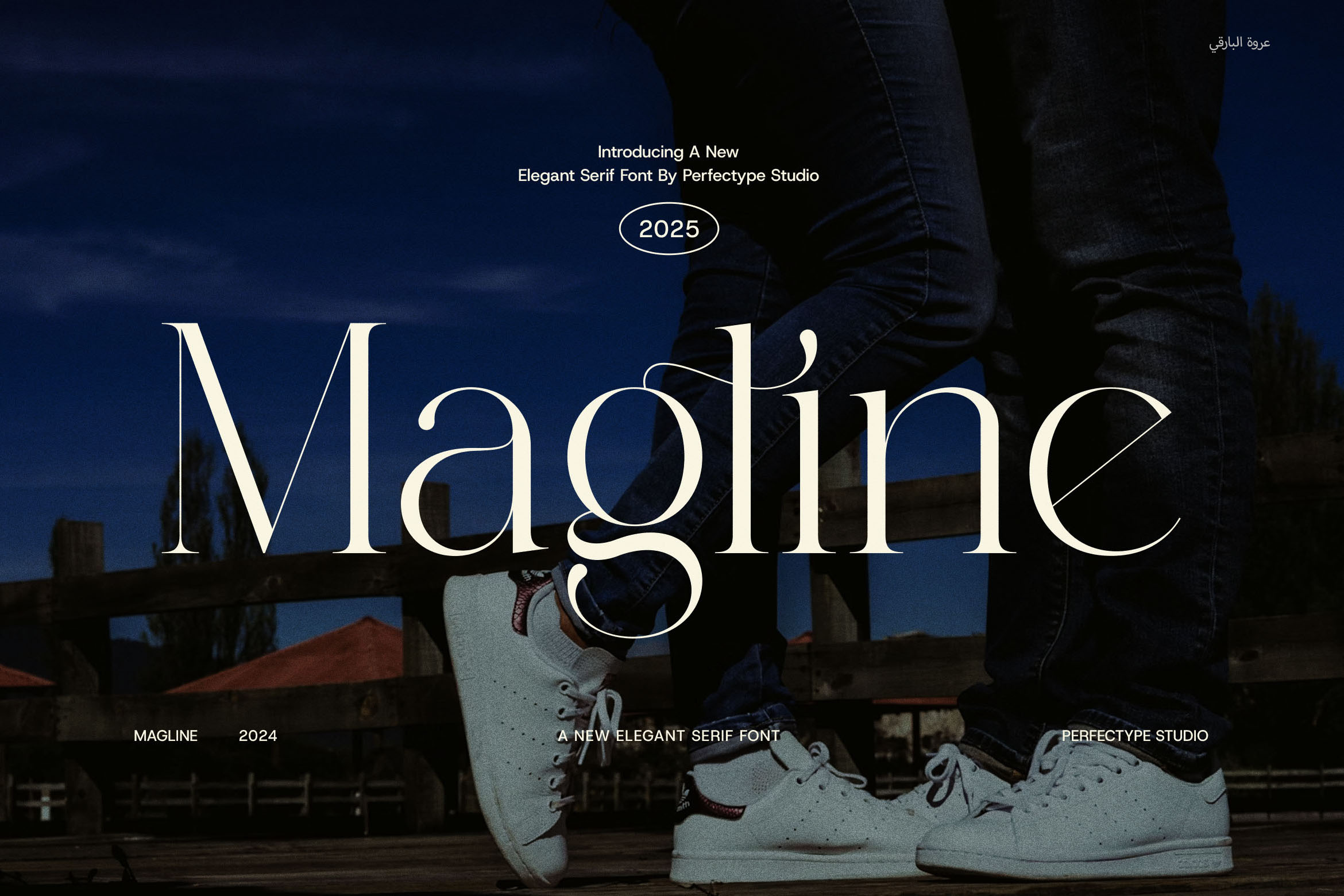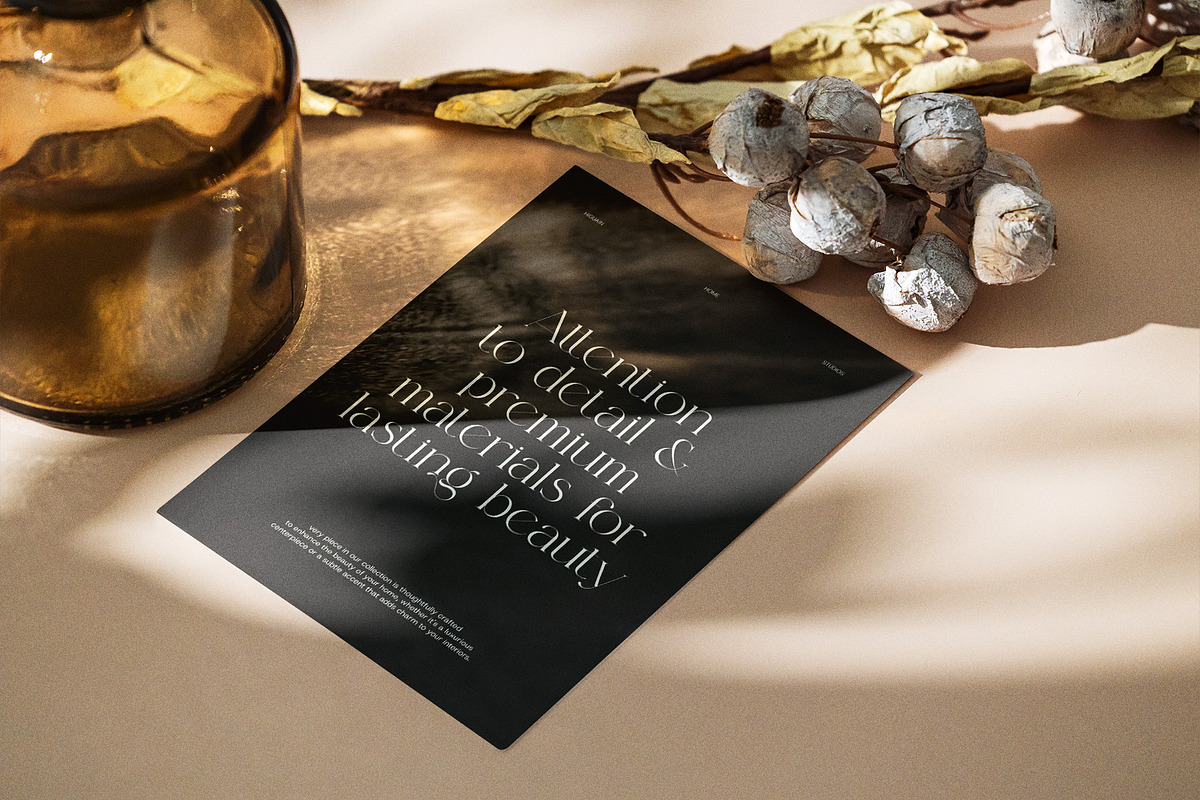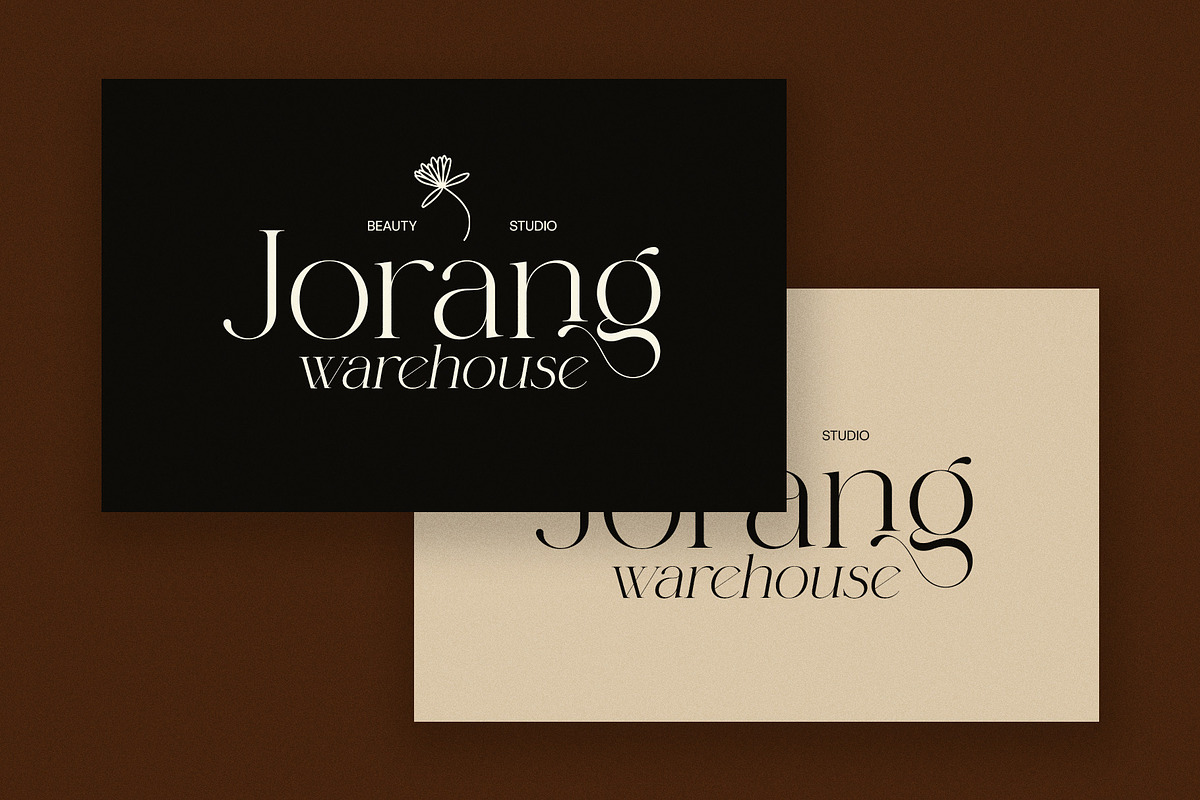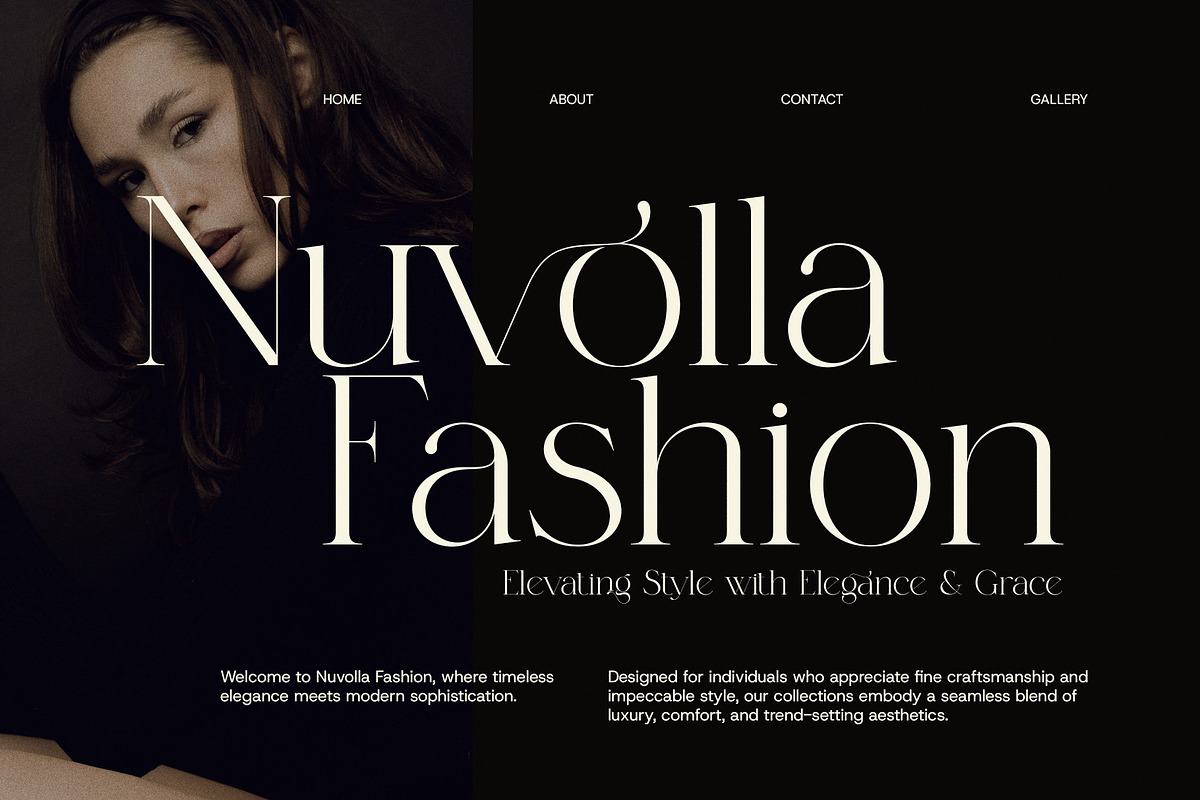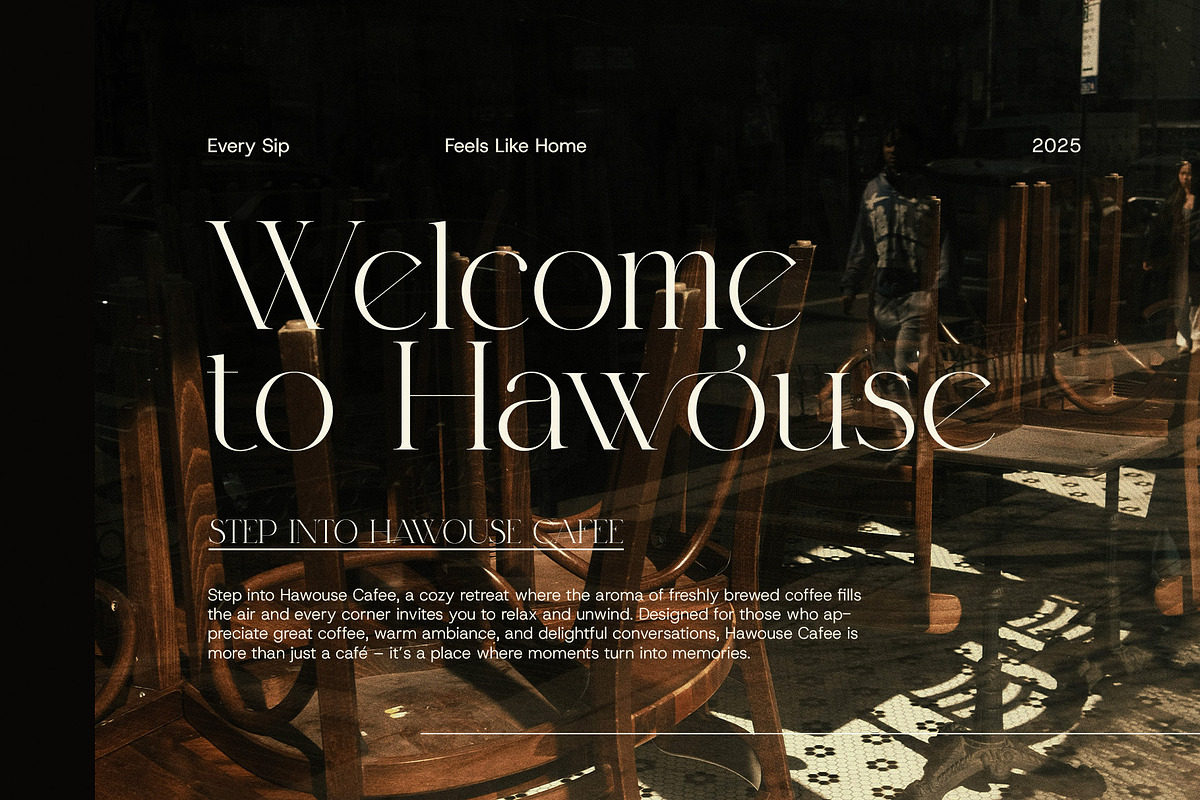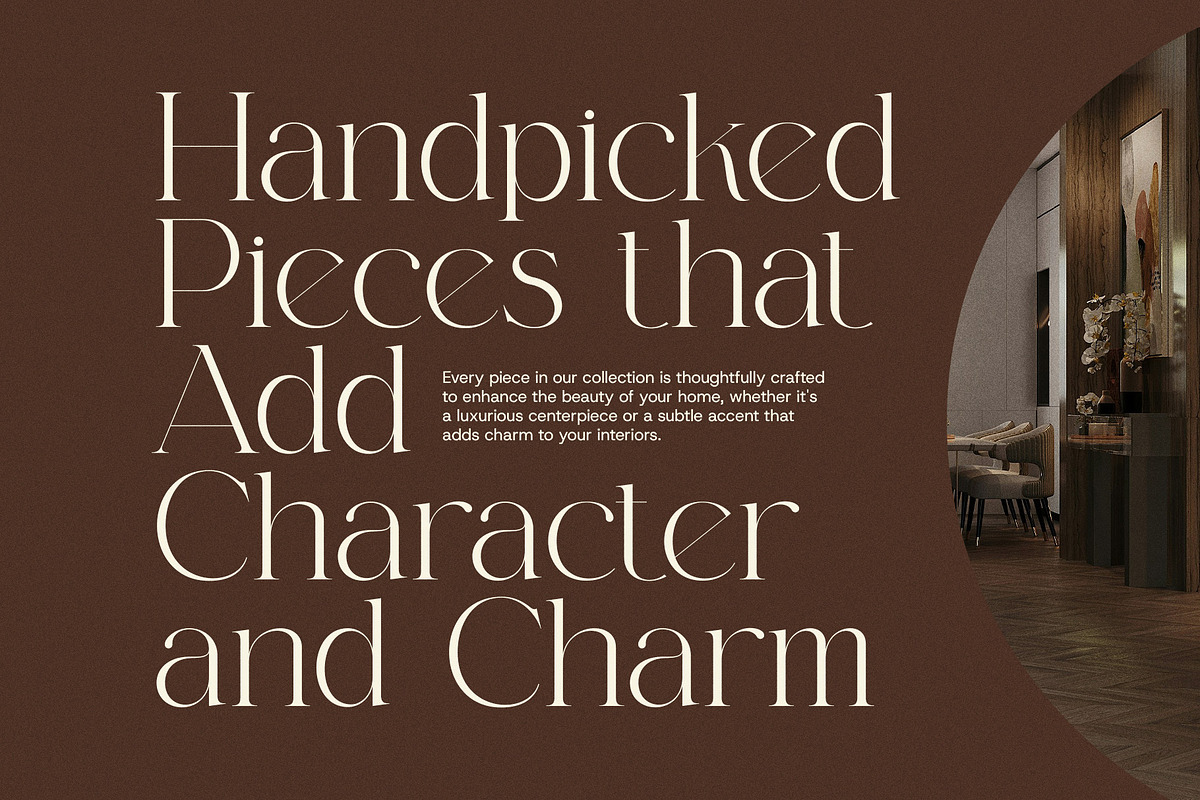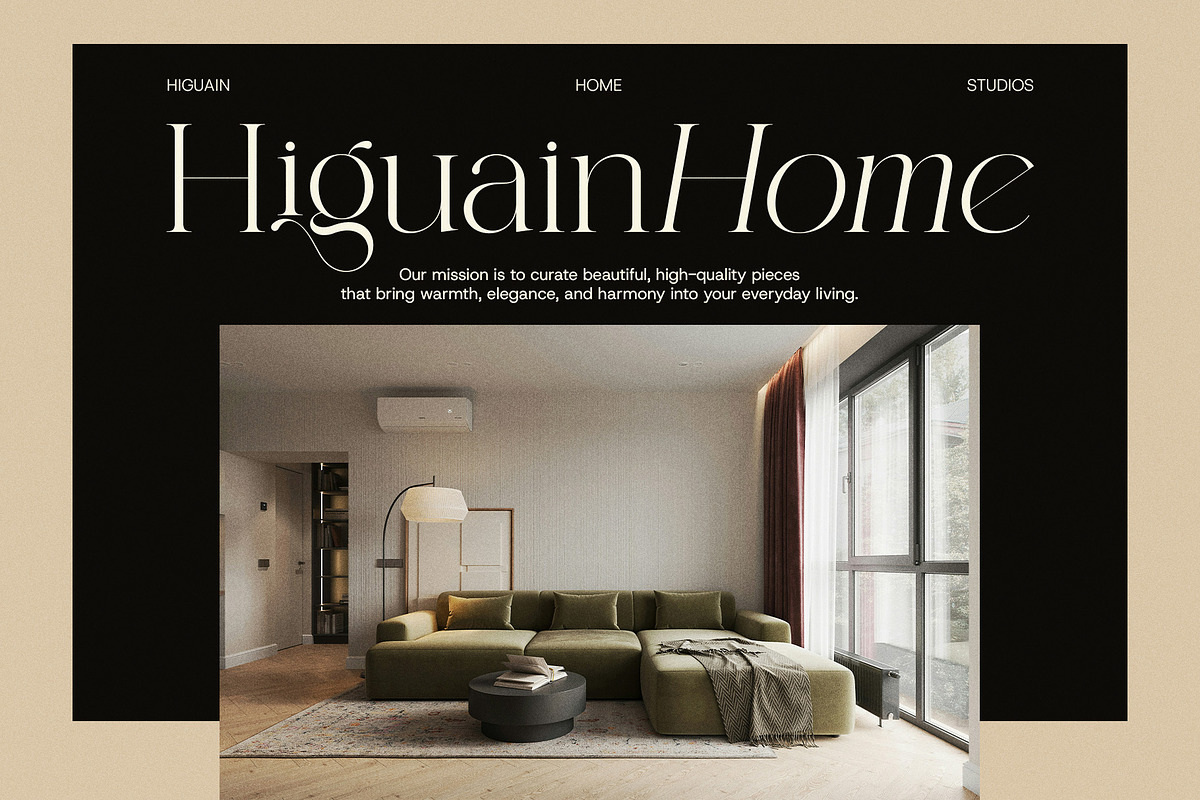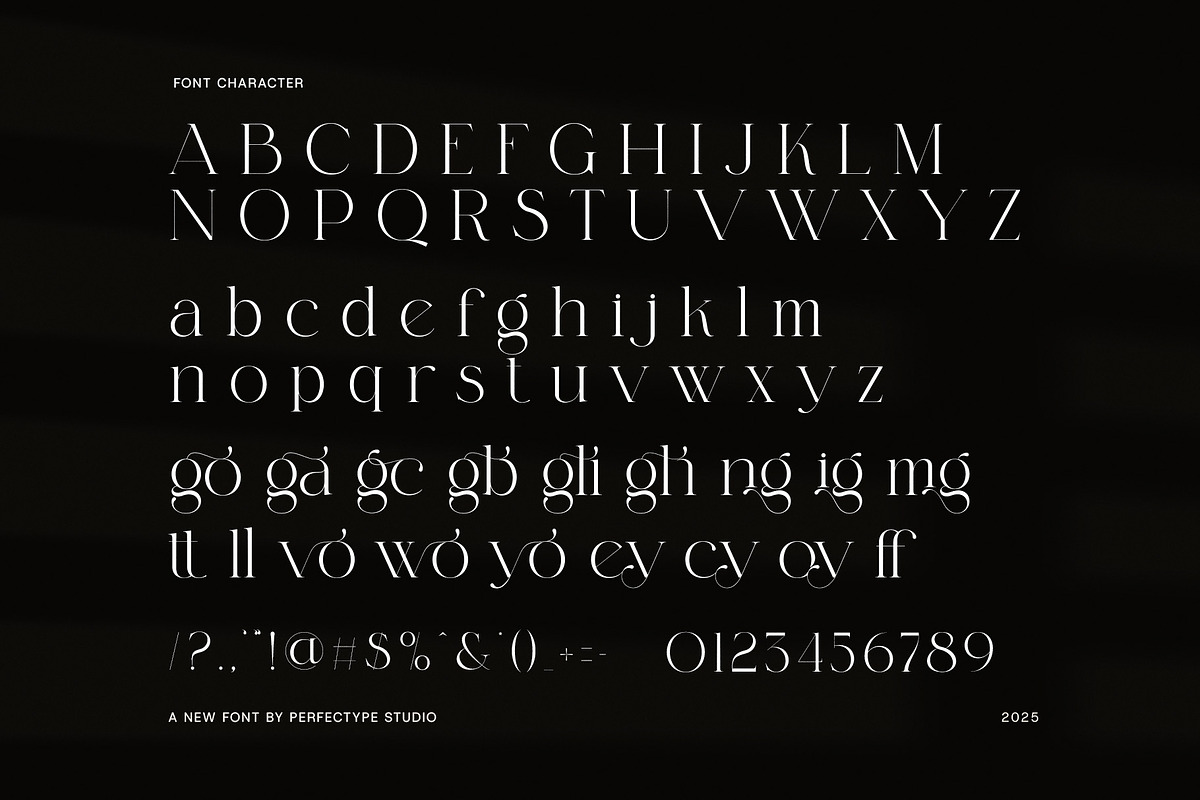
Magline Elegant Serif Font
Magline Elegant Serif Font is a sophisticated typeface that blends modern minimalism with timeless beauty. Designed to make a bold yet refined impression, Magline features gracefully sculpted letterforms, high-contrast strokes, and eye-catching ligatures that breathe elegance into every word.
This modern serif font stands out with its smooth curves and stylish alternates, offering a luxurious aesthetic perfect for premium branding and creative design projects. Whether you're creating a fashion-forward logo, designing editorial spreads, or crafting upscale packaging, Magline gives your work a polished, contemporary look.
With its unique ligatures and alternate characters, Magline allows for expressive typography that feels custom and thoughtfully crafted. It’s the ideal choice for designers who want to blend elegance with modern design trends.
Perfect for a variety of applications, including:
Logo design and brand identity
Fashion magazines and editorial layouts
Luxury product packaging and labels
Website headers and creative portfolios
Boutique advertising and visual campaigns
Social media graphics and promotional materials
Magline Elegant Serif Font comes fully equipped with uppercase and lowercase letters, numerals, punctuation, multilingual support, and a stylish set of ligatures and alternates. This flexibility allows you to create rich, layered typography that captures attention and enhances your brand story.
Its refined style makes it perfect for industries like fashion, beauty, interior design, weddings, lifestyle branding, and high-end food or product marketing. No matter the platform—digital or print—Magline delivers elegance with effortless readability and visual appeal.
From minimalist aesthetics to luxurious layouts, Magline offers a serif solution that’s both functional and fashionable. It’s more than just a font—it’s a creative tool designed to inspire sophistication in every project.
Bring modern elegance to your designs with Magline Elegant Serif Font—a typeface that speaks with style, strength, and unmistakable charm.